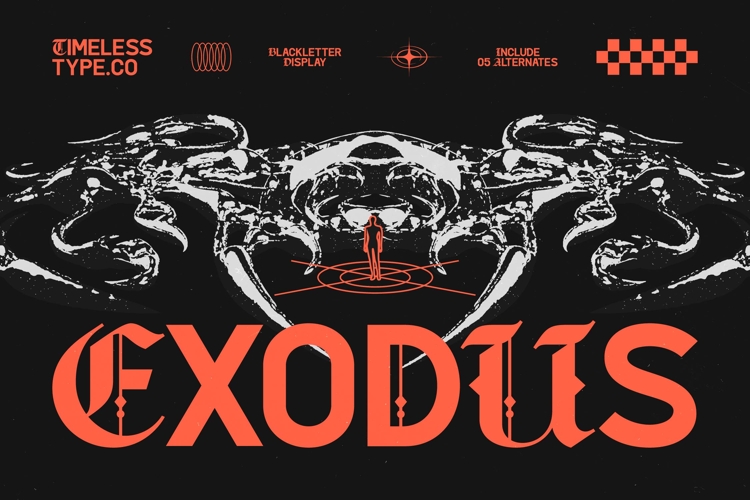
Exodus - Blackletter Display Font
Command immediate attention with an unrivaled aesthetic powered by the Exodus - Blackletter Display Font, a powerhouse of modern gothic design and high-impact typography. This typeface redefines the traditional blackletter aesthetic by merging sharp geometric precision with an aggressive, contemporary edge. Perfect for creators looking to infuse their work with a rebellious spirit and unmistakable presence, it delivers a striking visual weight that is both authoritative and artistically refined.
Global versatility meets masterfully crafted character sets to ensure your message resonates in every corner of the world. With its extensive multilingual support, Exodus - Blackletter Display Font adapts seamlessly across global markets, making it incredibly versatile for international projects. This robust linguistic range allows for consistent brand identity and seamless design integration, ensuring that your projects maintain their premium quality and legibility regardless of the region or language.